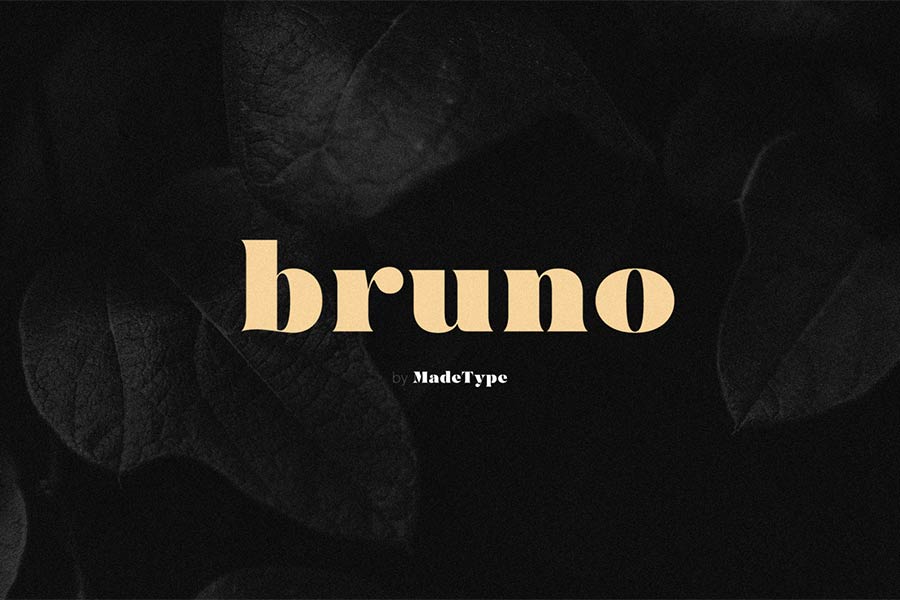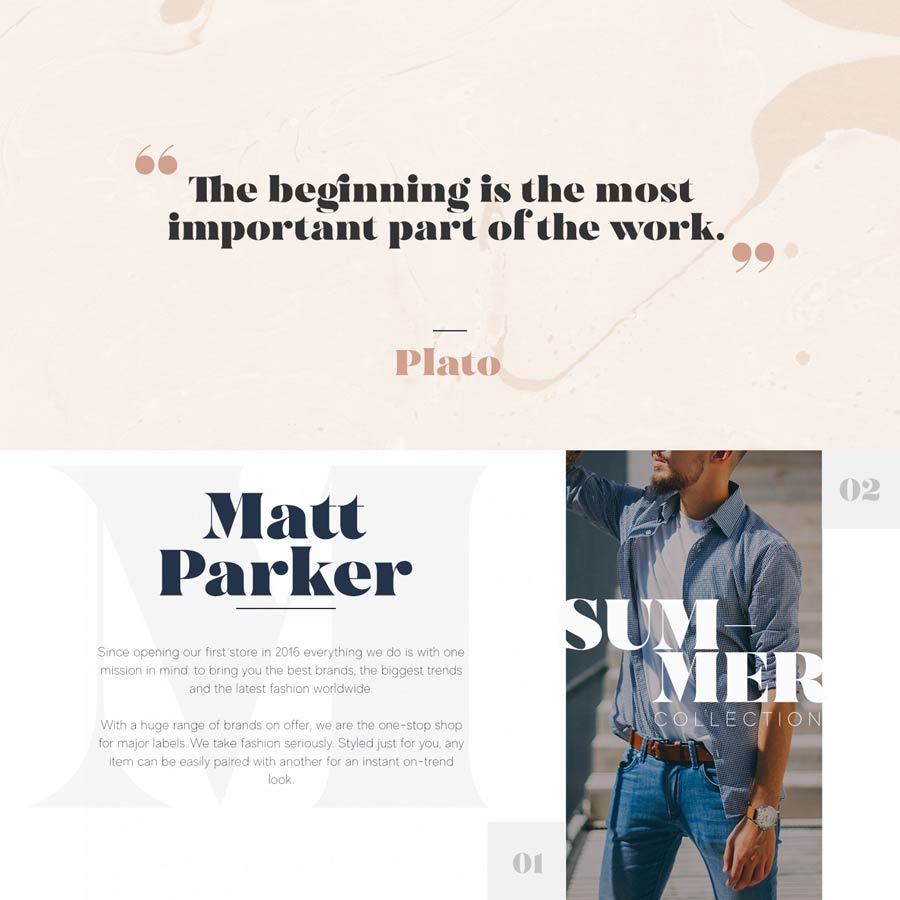
Bruno is a modern classic serif typeface great for fashion related designs. The characters are stylish, and come with high contrasty and fluidic strokes. This font works great for fashion branding, posters, pull-quotes, wedding invitations and many more.
Bruno typeface comes with extended characters that supports multi languages, plus several ligatures to boost the typographic aesthetic further. Bruno is free for personal use.